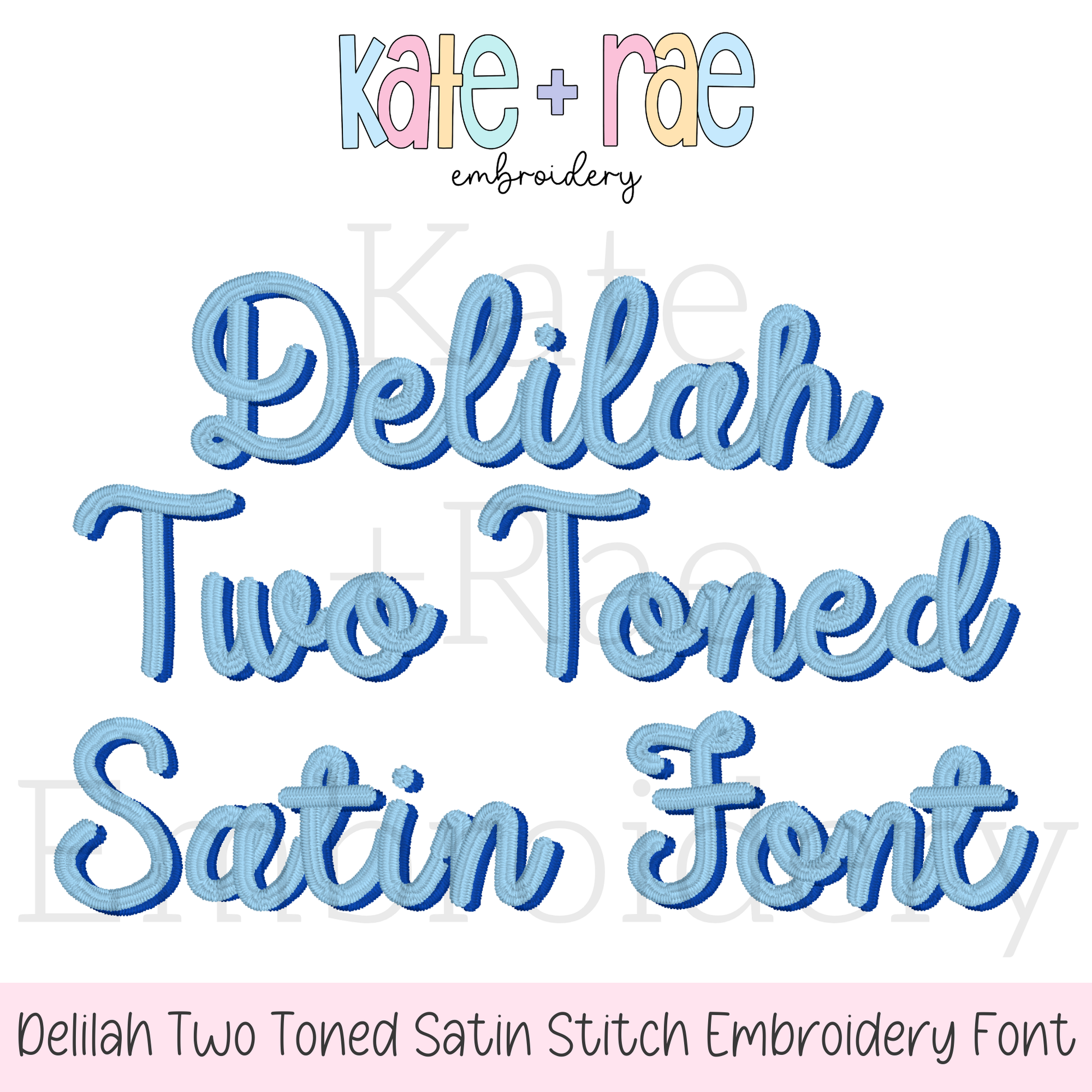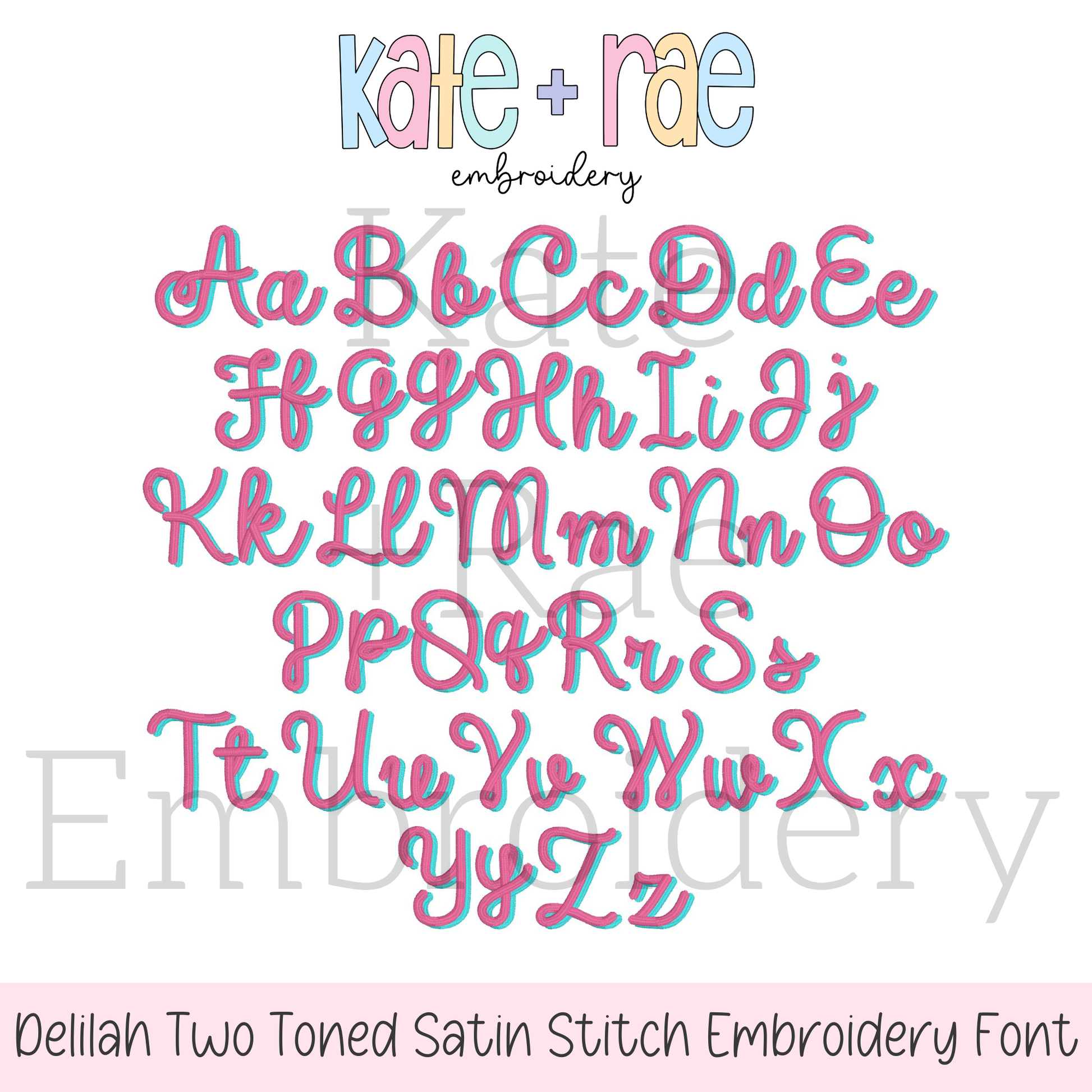
Delilah Two Toned Satin Stitch Embroidery Font
Meet Delilah Two Toned, a satin stitch font with a fun two-color look! Personalize names, monograms, sweatshirts, and kids' outfits.